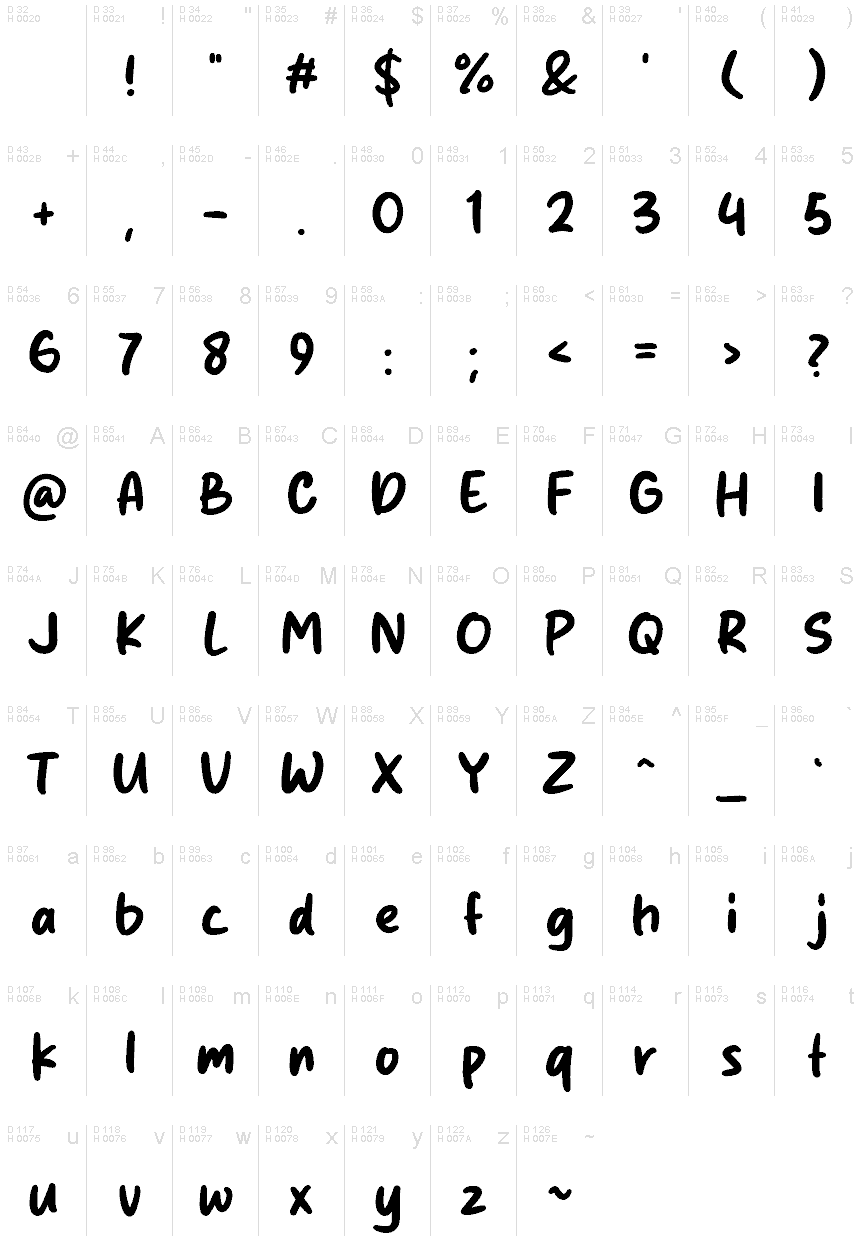
Simple Cake
Simple Cake font by MJType is a free handwritten font with a casual, friendly, and approachable feel. Its letters have relaxed curves with plenty of clear space between strokes. The modern aesthetics are particularly evident as they make the overall text look more cohesive and neat. All fans of handwritten fonts will definitely love how Simple Cake connects all the advantages of known styles.
Simple Cake will work well in items such as cosmetic labels, beauty product labels, serums or skin oil labels, magazines or magazine covers, greeting cards among many others. It can be used online for social media posts related to fashion and beauty or also game graphics where appropriate.